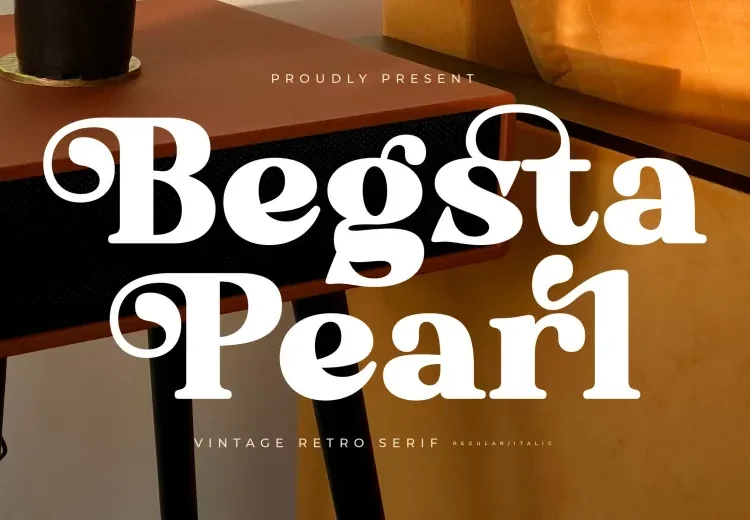
Begsta Pearl Font
Begsta Pearl is a vintage retro serif font that effortlessly combines elegance with a nostalgic charm, making it ideal for a wide range of design projects. Its luxurious serif style brings a touch of sophistication and high-end appeal to any creative endeavor. Whether you’re working on logos, branding concepts, or homeware packaging, Begsta Pearl enhances your designs with a timeless, refined aesthetic.
The versatility of Begsta Pearl extends to various applications, including posters, quotes, shopping bags, T-shirts, and book covers. Its distinctive retro flair is perfect for name cards, greeting cards, invitation cards, and labels, adding a touch of class and style to these items. Additionally, Begsta Pearl is well-suited for photography watermarks and special events, ensuring that every project maintains a high standard of elegance and impact.